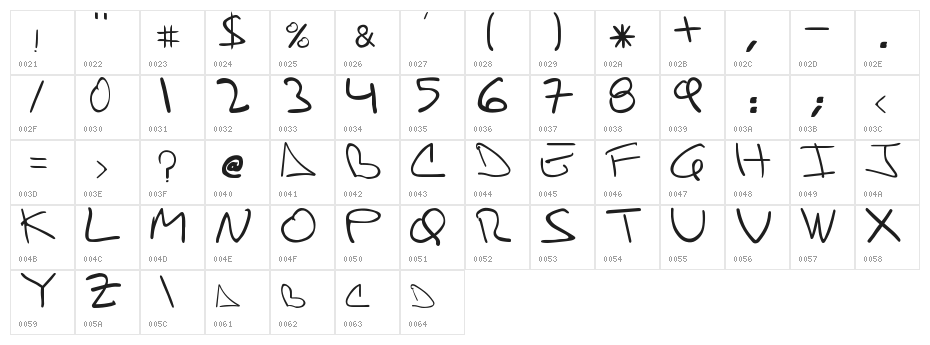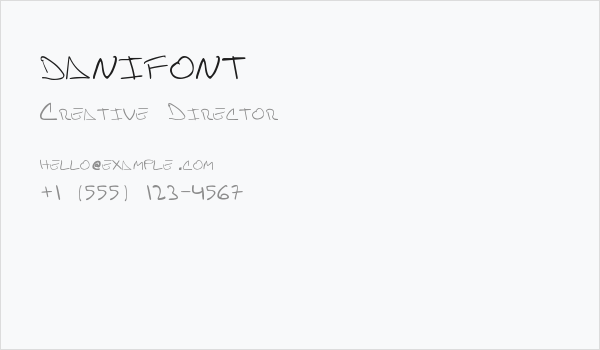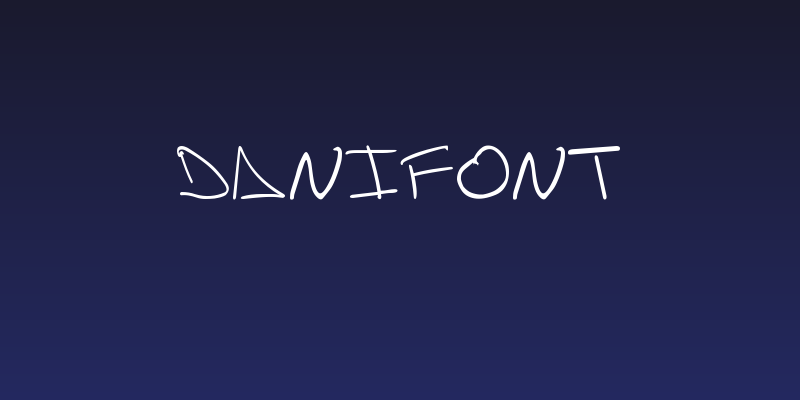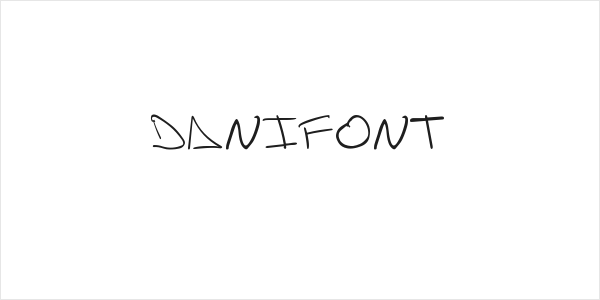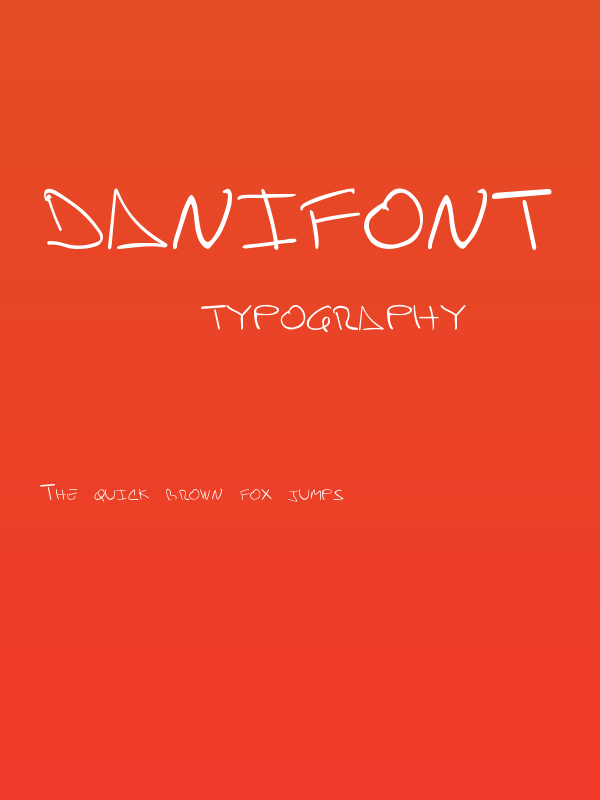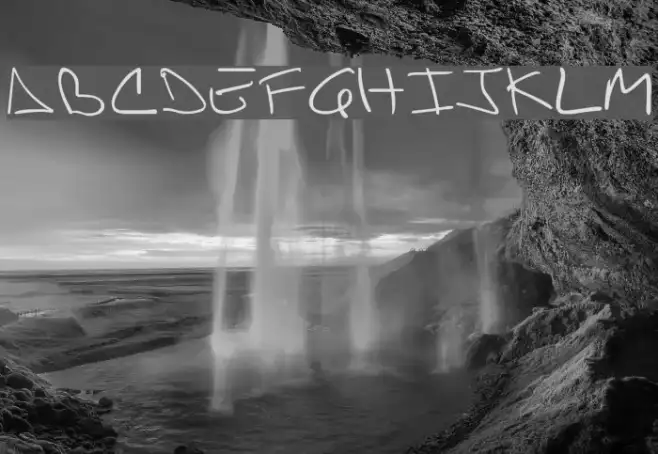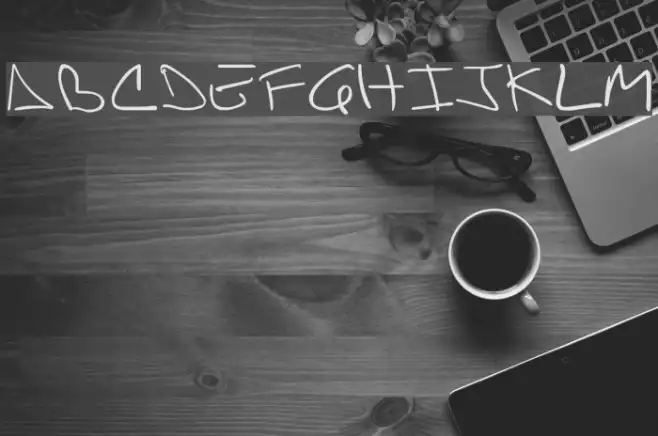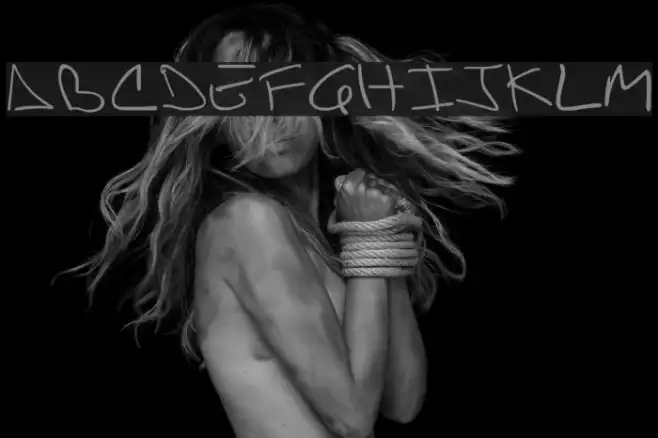
danifont Font
danifont Description
This font features a playful and casual handwritten style, characterized by its irregular and dynamic strokes. The letters have a whimsical and slightly tilted appearance, giving them a lively and informal feel. The uppercase and lowercase letters maintain a consistent style, with rounded edges and varying stroke thicknesses that add to the font's charm. The numerals and special characters are designed to match the overall aesthetic, ensuring a cohesive look across all text. This font is ideal for projects that require a personal touch or a sense of spontaneity.
| Proposed Projects | Greeting cards, children's books, casual invitations, and personal blogs. |